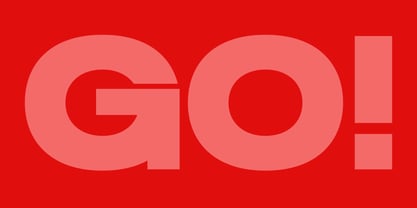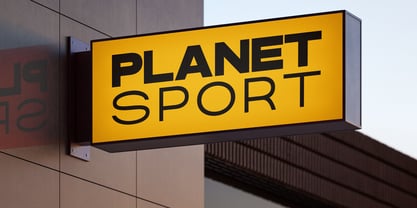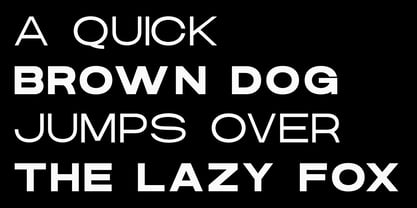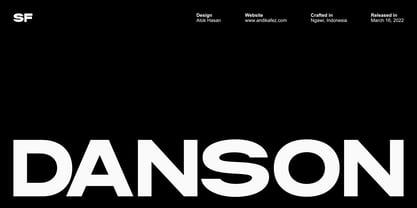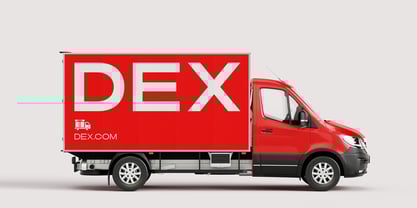
Danson
by Studio Fat Cat
The Danson Font Family was designed by Atok Khoirudin and published by Studio Fat Cat. Danson contains 10 styles and family package options. More about this family
Danson is a modern, minimal sans serif font designed for sharp, high-end branding and sleek logo design. With its clean lines, geometric structure, and subtle elegance, it’s perfect for everything from luxury fashion brands to tech startups looking to stand out with style.
Crafted for creative minds, Danson blends modern innovation with a touch of vintage refinement. It’s got that perfect balance of bold and elegant, making it ideal for logos, brand identities, and sophisticated design projects that demand both form and function. Think luxurious packaging, minimalist wedding stationery, or futuristic engineering presentations—it’s all fair game.
Whether you’re building a tech-forward brand, a fashion label, or anything in between, Danson brings the kind of technical precision and refined style that screams modern luxury. Clean, confident, and built for the future—Danson is your go-to font for standout branding.
Designers: Atok Khoirudin
Foundry: Studio Fat Cat